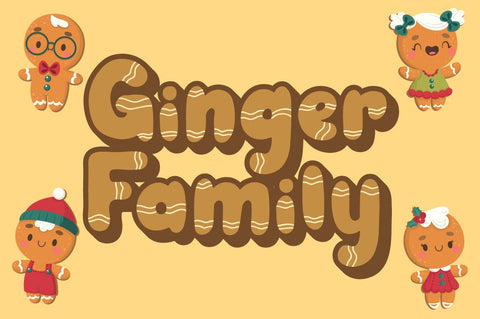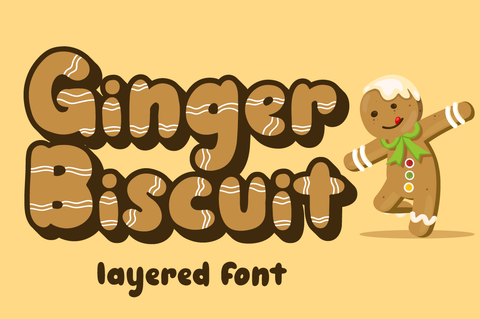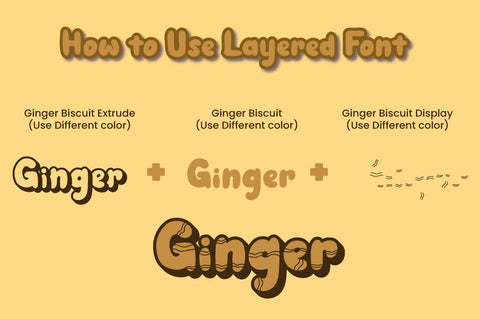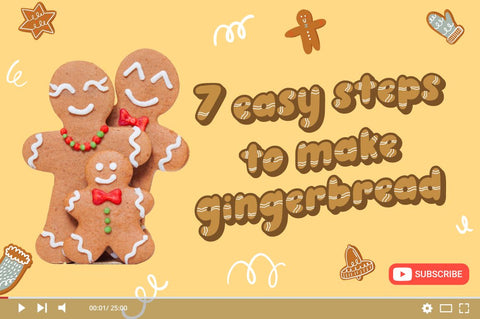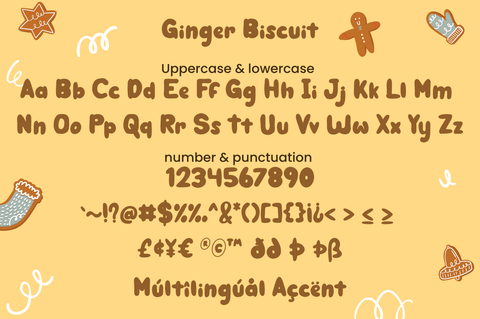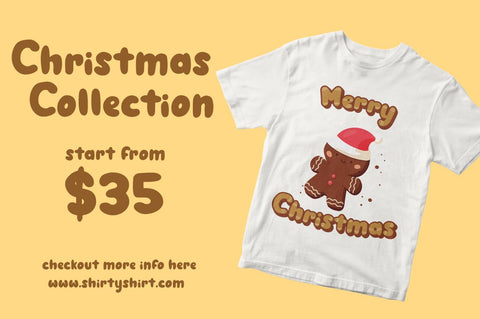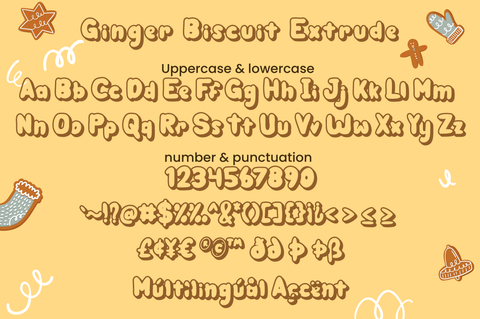
Ginger Biscuit - Christmas Font
Introducing Ginger Biscuit - Inspired by winter snack Gingerbread man, Ginger Biscuit is christmas font.
perfect for making merry christmas images for card & super easy to use for 3D effect using Ginger Biscuit font, make combination of this font to create amazing design!
Three style Font: Handwritten, Display & Extrude
Ginger Biscuit is perfect for children product, branding, logo, invitation, stationery, product packaging, merchandise, monogram,
blog design, game titles, cute style design, Book/Cover Title and more.